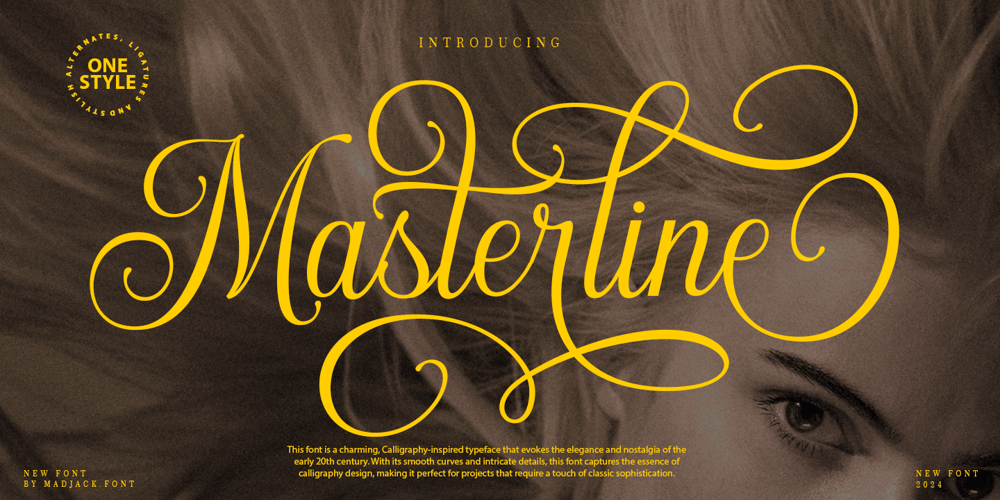
Masterline Script Font Family was designed by Zaki Muhammad and published by madjack.font. Masterline Script contains 1 styles and family package options. Masterline Calligraphy font is a modern calligraphy design, including Regular. This font is casual and beautiful with swashes. It can be used for various purposes, such as logos, product packaging, wedding invitations, branding, headlines, signage, labels, signatures, book covers, posters, quotes, and more.Masterline Calligraphy font includes OpenType stylistic changes, ligatures, and international support for most Western languages. To enable OpenType Stylistic alternatives, you need a program that supports OpenType features such as Adobe Illustrator CS, Adobe Indesign & CorelDraw X6-X7, Microsoft Word 2010 or later. How to access all alternative characters using Adobe Illustrator:https://www.youtube.com/watch?v=XzwjMkbB-wQMasterline Calligraphy font is encoded with PUA Unicode, which allows full access to all additional characters without having to design special software. Mac users can use Font Book, and Windows users can use Character Map to view and copy any of the alternate characters to paste into your favorite text editor/application. How to access all alternate characters, using Windows Character Map with Photoshop:https://www.youtube.com/watch?v=Go9vacoYmBwIf you need any help or have any questions, please let me know. I’m happy to help 🙂 Thanks & Congratulations on the Design!